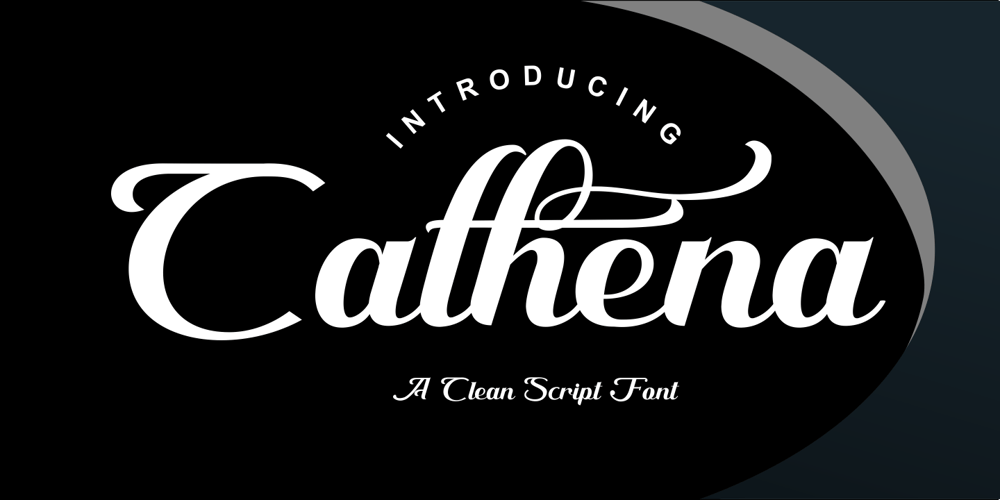
Cathena
Cathena font
Cathena Font Family was designed by Joko Setiono and published by Arttype7. Cathena contains 1 styles and family package options. Cathena is a modern script with sweet touches and beautiful curves in each letter. It features a bold, authoritative, luxurious, modern and premium nature.Cathena is great for wedding invitations. magazines, logos, signatures, photography watermarks.